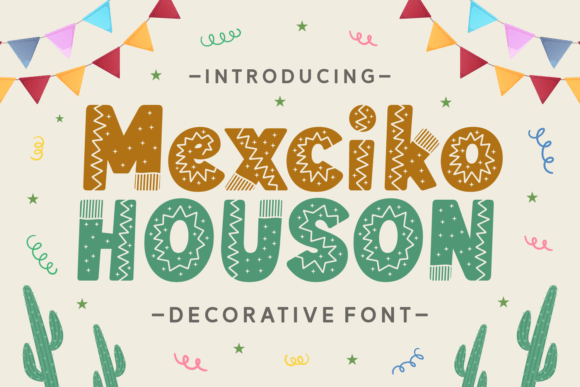
Welcome to the captivating world of Mexciko Houson, a decorative font that dances with joy and exudes the essence of celebration. Its chubby characters, adorned with cheerful stars and authentic Mexican motifs, bring vibrancy and charm to any digital canvas.
Mexciko Houson is a font that captivates the spirit of fiesta and invites you to create designs that radiate happiness. Picture vibrant party invitations that bring a smile to your guests' faces, Cinco de Mayo projects that burst with cultural pride, posters that announce joyous events, and cards that convey heartfelt messages with a touch of whimsy.
This font is more than just a collection of letters; it's a fiesta of creativity, waiting to transform your designs into extraordinary expressions of joy. Its playful nature brings a sense of lightheartedness to fabric prints, adding a unique touch to clothing, home décor, and accessories. With Mexciko Houson, your designs will dance off the screen, capturing the essence of celebration and leaving a lasting impression on all who see them.
Embark on a creative adventure with Mexciko Houson and let your imagination soar. Its unique charm will infuse your designs with a contagious sense of happiness, spreading joy and merriment wherever it goes. Embrace the spirit of celebration and make your designs shine with Mexciko Houson, the font that ignites joy in every pixel.